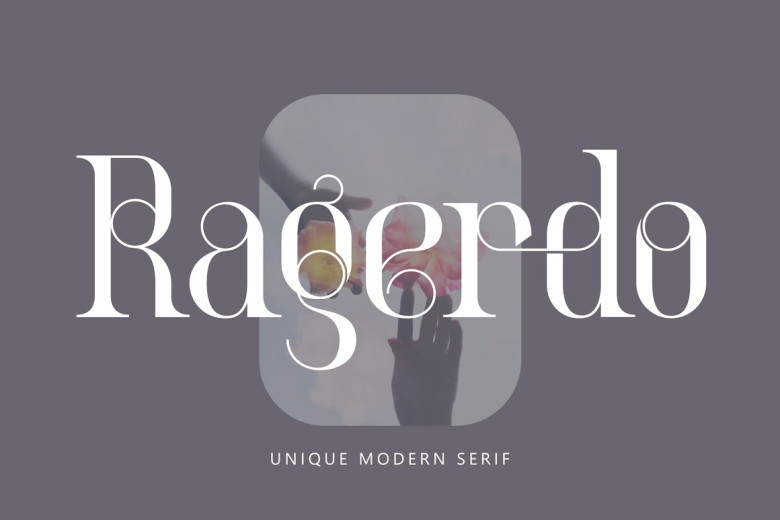
Ragerdo Font
Ragerdo is a modern Serif font. Each letter of this font was carefully handcrafted so that your text will stand out and look unique. Ragerdo features elegant, classic, and luxury style; perfect for branding projects of any sort; plus many ligatures allow for creative logo designs and header creation!
Ragerdo Serif Font